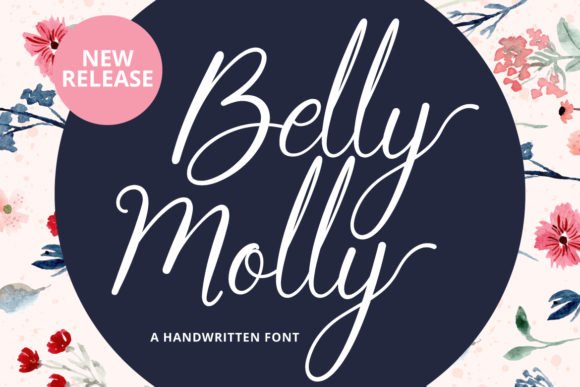
Belly Molly is an elegant script font with a contemporary atmosphere and impeccable form, inspired by timeless classic calligraphy.
Not too thin and not too thick, balanced and varied, Belly Molly was designed to enhance the beauty of your projects This font is PUA encoded which means you can access all of the glyphs and swashes with ease.